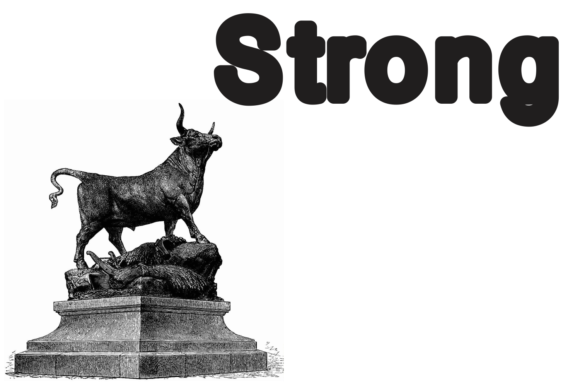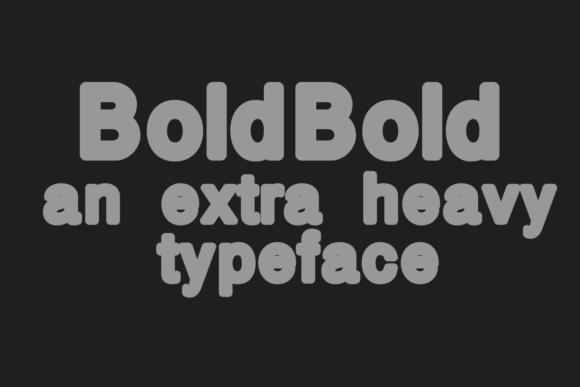
The Birth of a Bold New Era in Typography
Have you ever been working on a design project and suddenly, the words just aren’t bold enough? The message isn’t making the impact you want it to. That’s when the creative spark hits – what if there was a font that truly lived up to its name? A font that would make your text stand out, make it scream, make it unforgettable.
Enter BoldBold Font, a game-changing extrabold font design that’s been making waves in the design community. This powerful font is more than just a bold statement – it’s a tool for designers to create real impact. With BoldBold Font, you can add depth, emotion, and energy to your designs, making them truly unforgettable.
BoldBold Font Key Features
- Font Family: BoldBold Font is a sans-serif font family with 12 styles, including bold, light, and italic variations.
- Font Size: Supports font sizes from 8 to 72 points, making it suitable for various applications, including body text, headings, and titles.
- Resolution: Designed for high-resolution displays, with optimal legibility at resolutions up to 300 DPI (dots per inch).
- Unicode Support: Includes a wide range of Unicode characters, ensuring compatibility with languages that use non-Latin scripts.
- Font Weight: Offers a unique weight system, with 12 weights ranging from Extra Light to Extra Bold, allowing for precise control over text appearance.
Designer Review: BoldBold Font
First off, I love the confident name – BoldBold Font! It’s exactly what you’d expect: a robust, attention-grabbing typeface perfect for making statements. ✨
The font has a very modern feel, with clean lines and a crisp aesthetic that’s sure to appeal to designers looking for a contemporary look. It’s also incredibly versatile, working well in both digital and print applications.
Some of the standout features include:
- Wide language support, making it perfect for global branding
- Multiple weight options to suit various design needs
- Well-designed italics that don’t look awkward or forced
However, I do have some reservations about the font’s limitations. ⚠️
It’s not ideal for small text or fine details, as it can look a bit chunky at those scales. Additionally, while the font is modern, it’s not particularly innovative – it’s more of a safe, tried-and-true choice rather than a game-changer.
Overall, I’d say BoldBold Font is a solid choice for designers looking for a reliable, attention-grabbing font. It’s not the most exciting option, but it gets the job done – and that’s often just what you need.
Alternatives to BoldBold Font
Arial Black is a sans-serif font that is often used for headings and titles. It is similar to BoldBold Font in that it provides a bold and modern look, but it is more versatile and can be used in a variety of contexts. Use Arial Black when you want a bold font that is easy to read and works well in digital formats.
Compared to BoldBold Font, Arial Black is more widely available and can be easily customized in most design software.
Impact is a sans-serif font that is often used for titles and headings. It is similar to BoldBold Font in that it provides a bold and dramatic look, but it is more elegant and sophisticated. Use Impact when you want a bold font that makes a statement and adds emphasis to your text.
Q: What is the recommended font size for optimal readability with BoldBold Font?
The recommended font size for optimal readability with BoldBold Font is between 12 and 14 points. However, this may vary depending on the specific use case, screen resolution, and individual user preferences. Experiment with different font sizes to find the most readable and visually appealing combination.